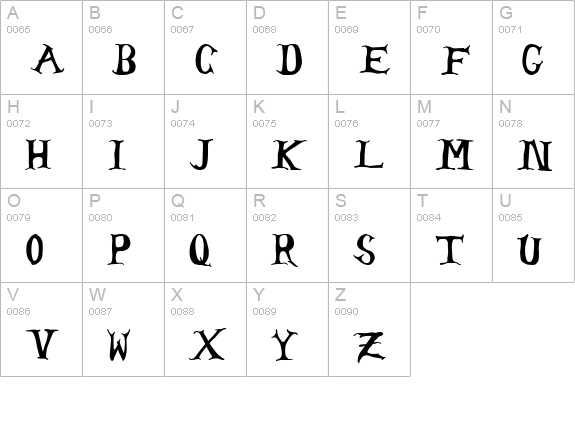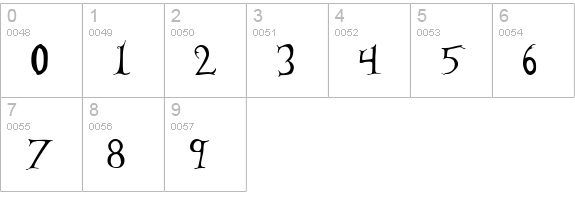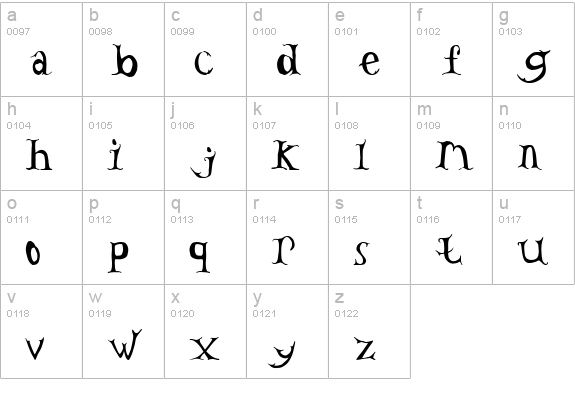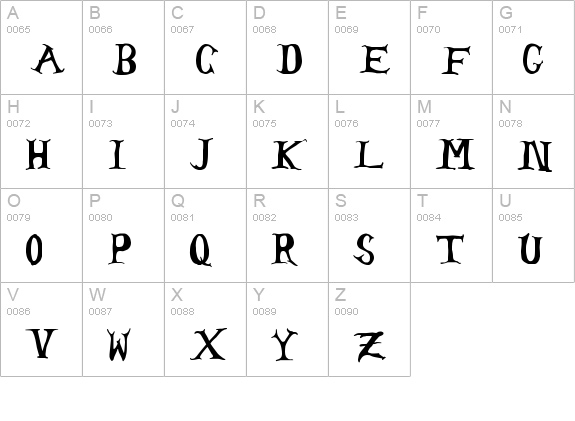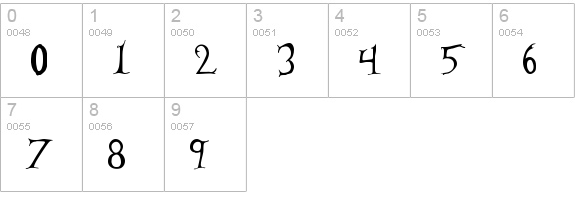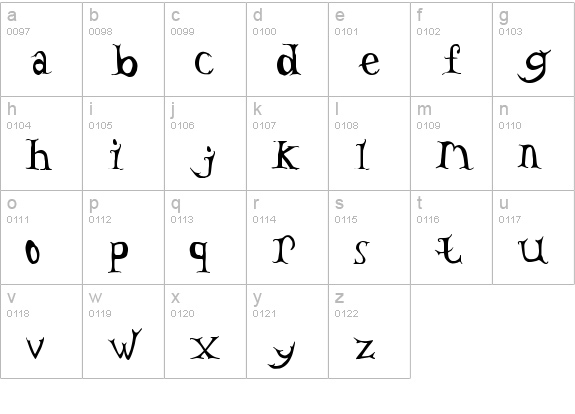
Tom's Headache Font Details
Introducing Tom's Headache font, a captivating and unique typeface that is sure to make a bold statement. With its edgy and contemporary design, this font is perfect for adding a touch of personality and flair to your projects. Tom's Headache font features a sleek and modern look, with sharp lines and distinct shapes that exude a sense of sophistication and creativity. Its attention-grabbing style is ideal for headlines, logos, branding, and any other design project that requires a standout font. But what sets Tom's Headache font apart is not just its stunning aesthetics, but also its availability. This font is completely free and can be easily downloaded at FontsMarket.com. Say goodbye to the hassle of searching for the perfect font and hello to the convenience of having Tom's Headache font readily accessible for your design needs. Whether you're a professional designer, a student, or simply someone with a creative streak, Tom's Headache font is the ideal choice for adding that extra touch of pizzazz to your work. So why wait? Download Tom's Headache font today and let your creativity soar.